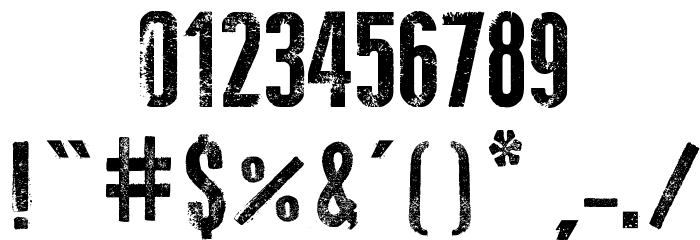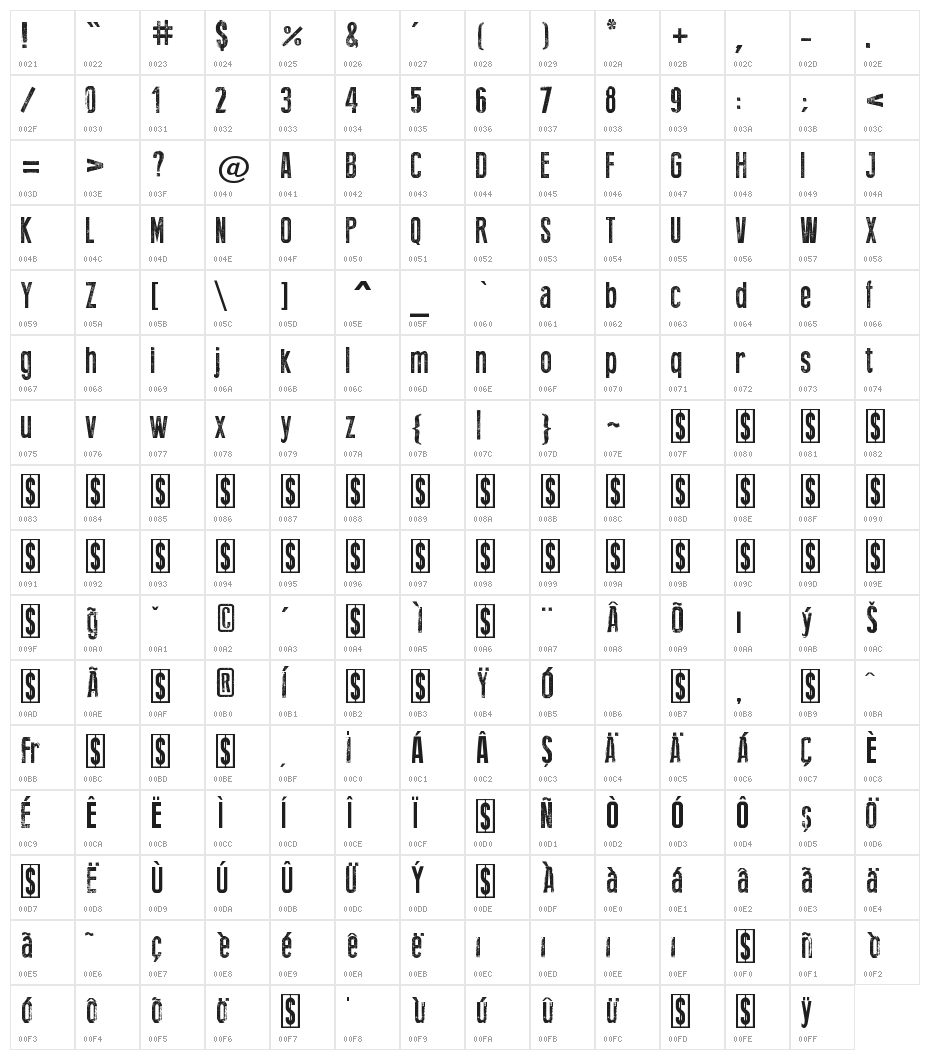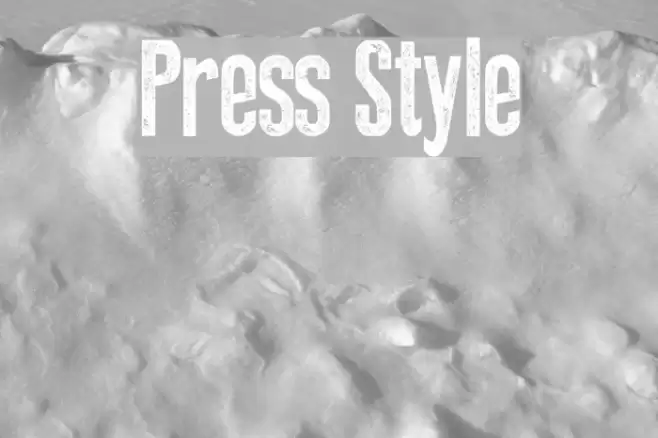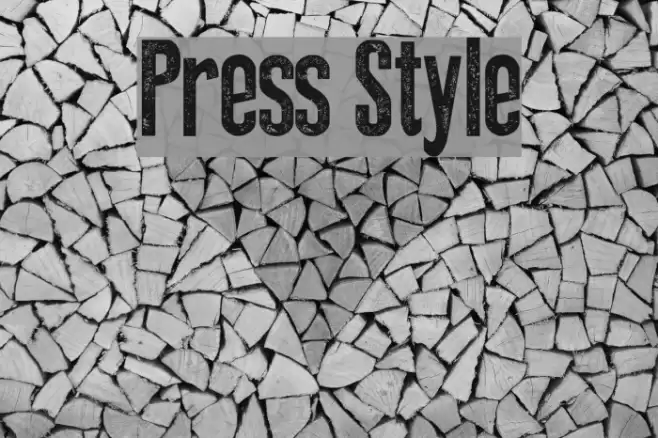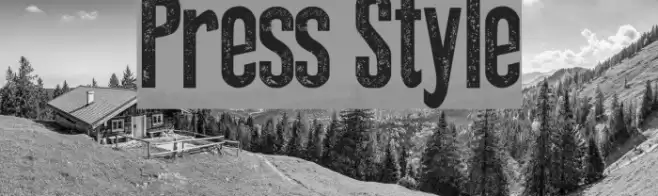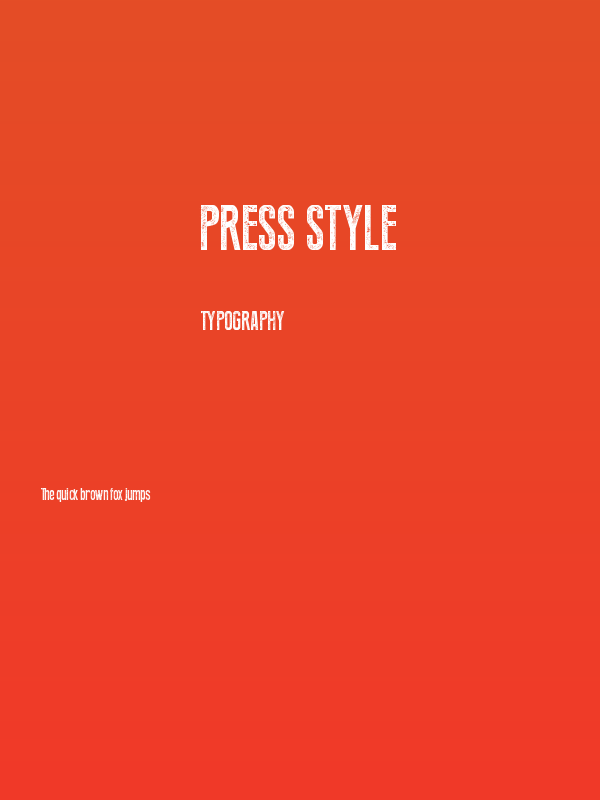
Press Style Font
Press Style Description
This font features a bold, distressed style that mimics the appearance of old printing press typefaces. The characters are robust and display a textured, worn effect, giving them a vintage and industrial feel. The uppercase and lowercase letters are consistent in their rugged appearance, with numbers and special characters following the same design ethos. The font's boldness and texture make it stand out, ideal for projects that require a strong, impactful visual presence.
| Proposed Projects | Ideal for posters, branding, logos, and any design that requires a vintage or industrial aesthetic. |